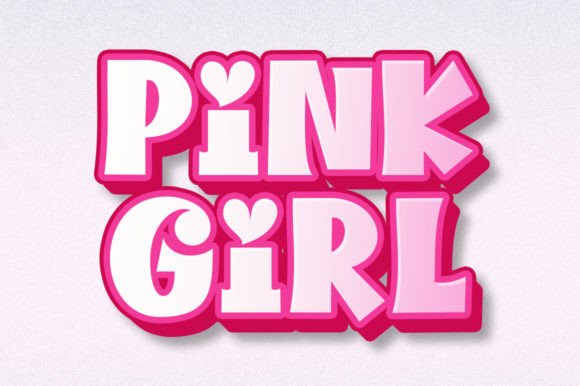
Pink Girl Font: Add a Touch of Whimsy to Your Designs
If you’re looking for a font that can add a dash of fun and playfulness to your designs, look no further than the Pink Girl Font. This adorable display font is perfect for creatives who want to create eye-catching and charming visuals that will leave a lasting impression. In this article, we’ll take a closer look at the Pink Girl Font, its features, and how you can use it to elevate your designs.
What is Pink Girl Font?
Pink Girl Font is a cute and charming display font that is designed to add a touch of whimsy to your designs. Its whimsical and quirky style makes it perfect for projects that require a playful and fun approach. Whether you’re working on a branding project, a poster, or a social media graphic, this font is sure to brighten up your design and make it stand out.
Benefits of Using Pink Girl Font
There are many benefits to using Pink Girl Font in your designs. Here are a few:
- Cute and charming: The Pink Girl Font is designed to be adorable and charming, making it perfect for projects that require a playful approach.
- Whimsical and quirky: This font has a unique and quirky style that will add a touch of personality to your designs.
- Versatile: This font can be used for a wide range of projects, from branding and posters to social media graphics and more.
Key Features of Pink Girl Font
The Pink Girl Font has several key features that make it stand out from other fonts. Here are a few:
- Wide range of glyphs and ligatures: This font comes with a wide range of glyphs and ligatures that you can use to add a touch of personality to your designs.
- Easy to read: Despite its playful style, the Pink Girl Font is easy to read, making it perfect for use in a wide range of projects.
How to Use Pink Girl Font
The Pink Girl Font can be used for a wide range of projects, including:
- Branding: Use the Pink Girl Font to create adorable and charming branding materials, such as logos, business cards, and letterheads.
- Posters: Add a touch of whimsy to your posters with the Pink Girl Font, perfect for promoting events, products, or services.
- Social media graphics: Use the Pink Girl Font to create eye-catching social media graphics that will help you stand out from the crowd.
- Wedding and party decorations: The Pink Girl Font is perfect for creating adorable and charming wedding and party decorations, such as invitations, banners, and garlands.
Tips for Using Pink Girl Font
Here are a few tips for using the Pink Girl Font:
- Use it sparingly: While the Pink Girl Font is adorable and charming, it can be overwhelming if used too much. Use it sparingly to add a touch of personality to your designs.
- Pair it with other fonts: The Pink Girl Font can be paired with other fonts to create a unique and interesting contrast.
- Experiment with colors: The Pink Girl Font looks great in a variety of colors, so don’t be afraid to experiment and find the perfect color for your design.
In conclusion, the Pink Girl Font is a cute and charming display font that is perfect for creatives who want to add a touch of whimsy to their designs. With its wide range of glyphs and ligatures, ease of use, and versatility, this font is sure to become a favorite in your font collection. So why not give it a try and see how it can elevate your designs?